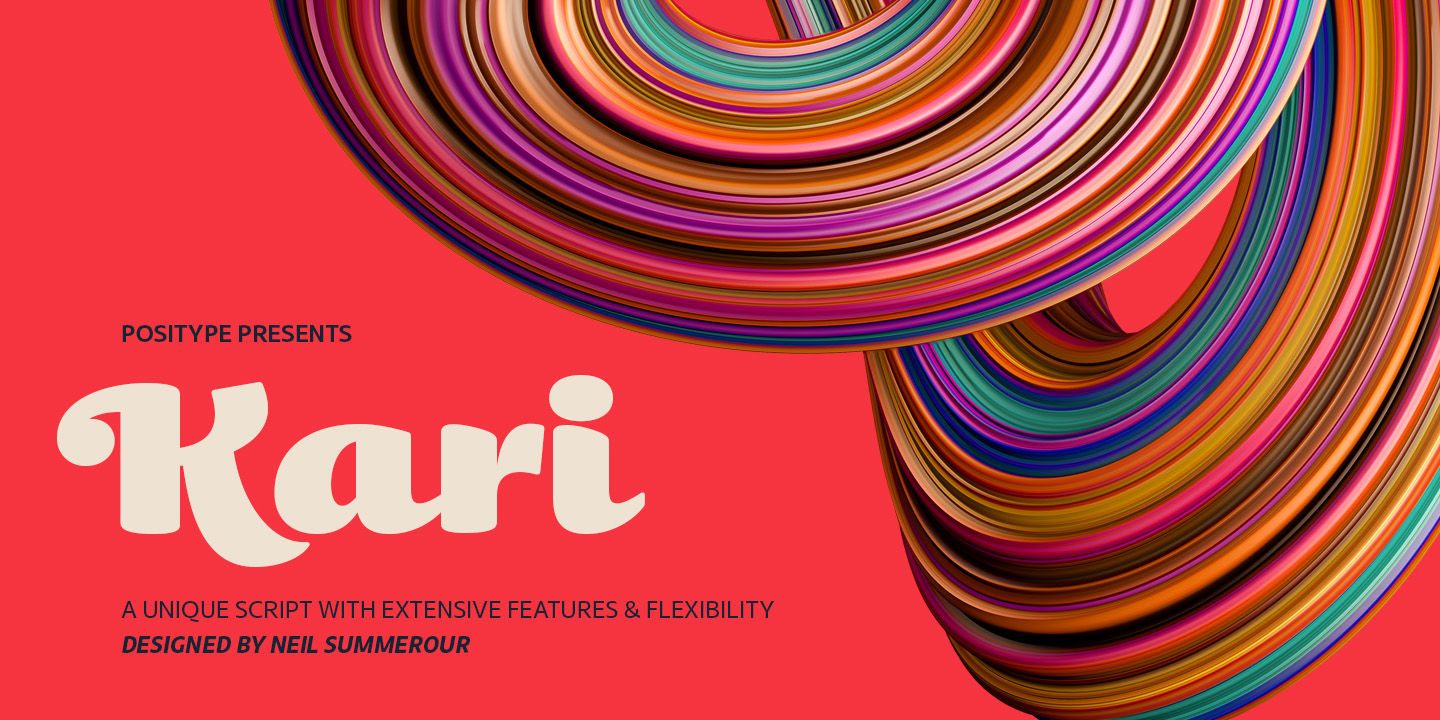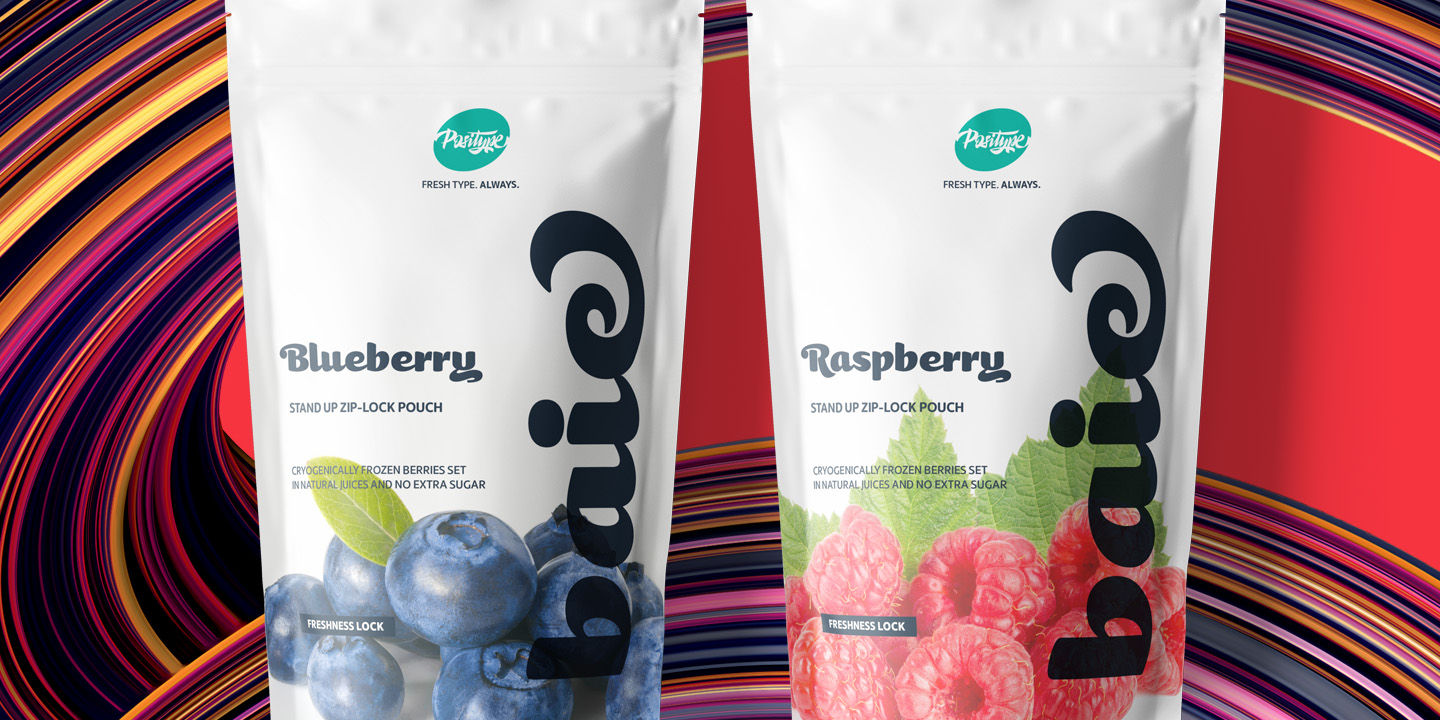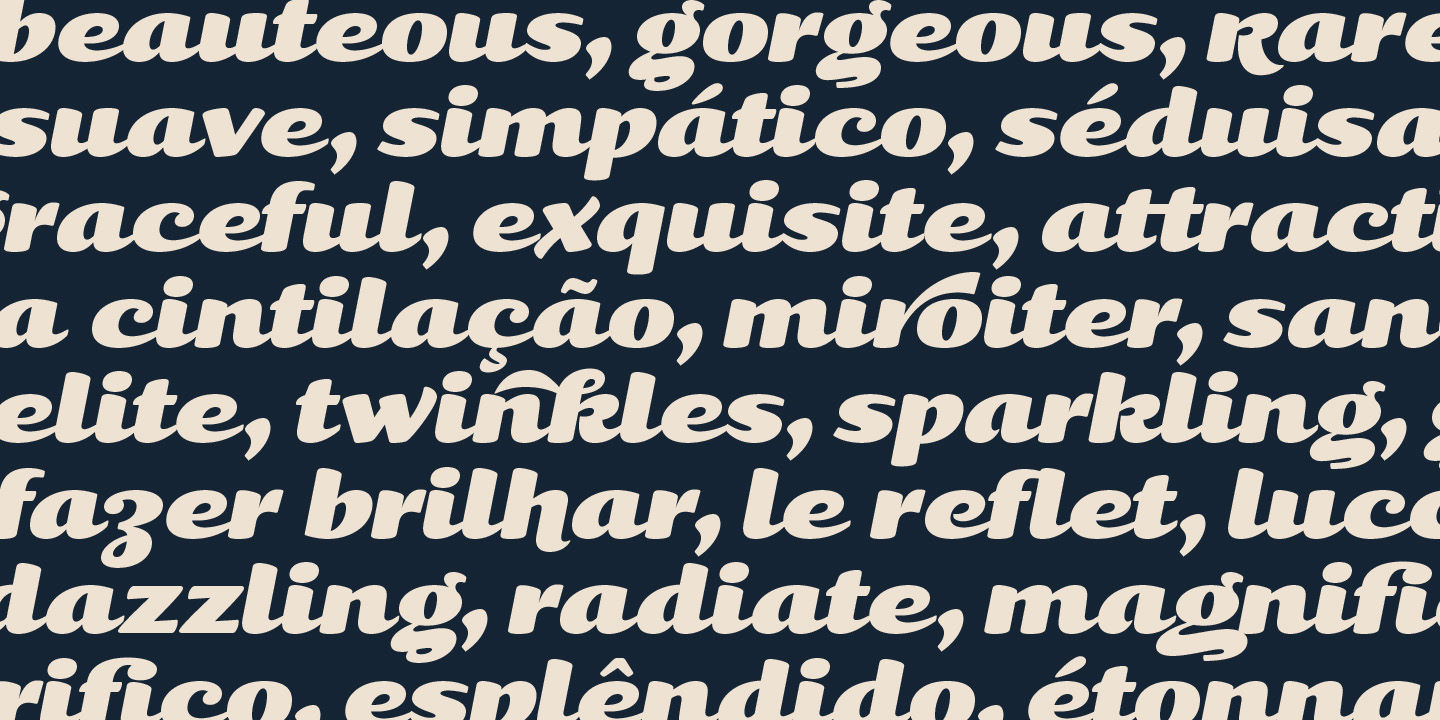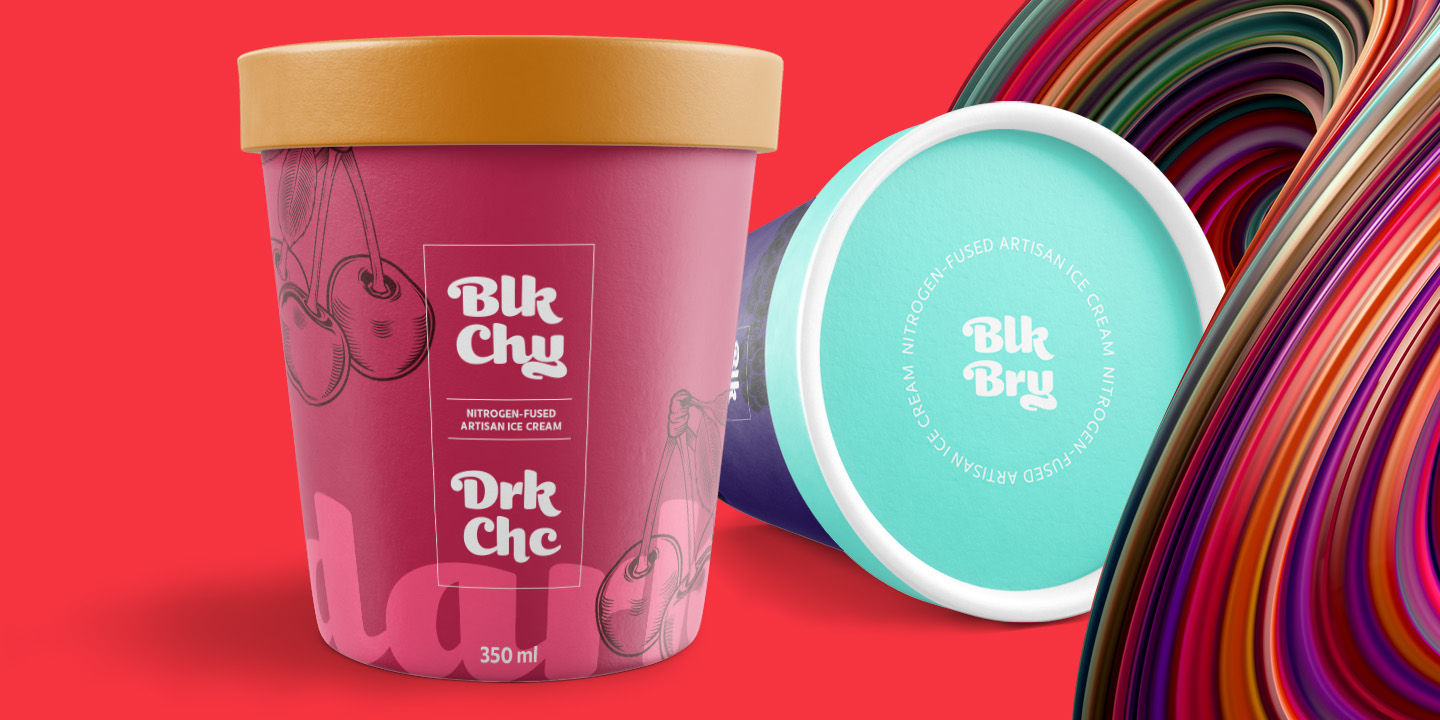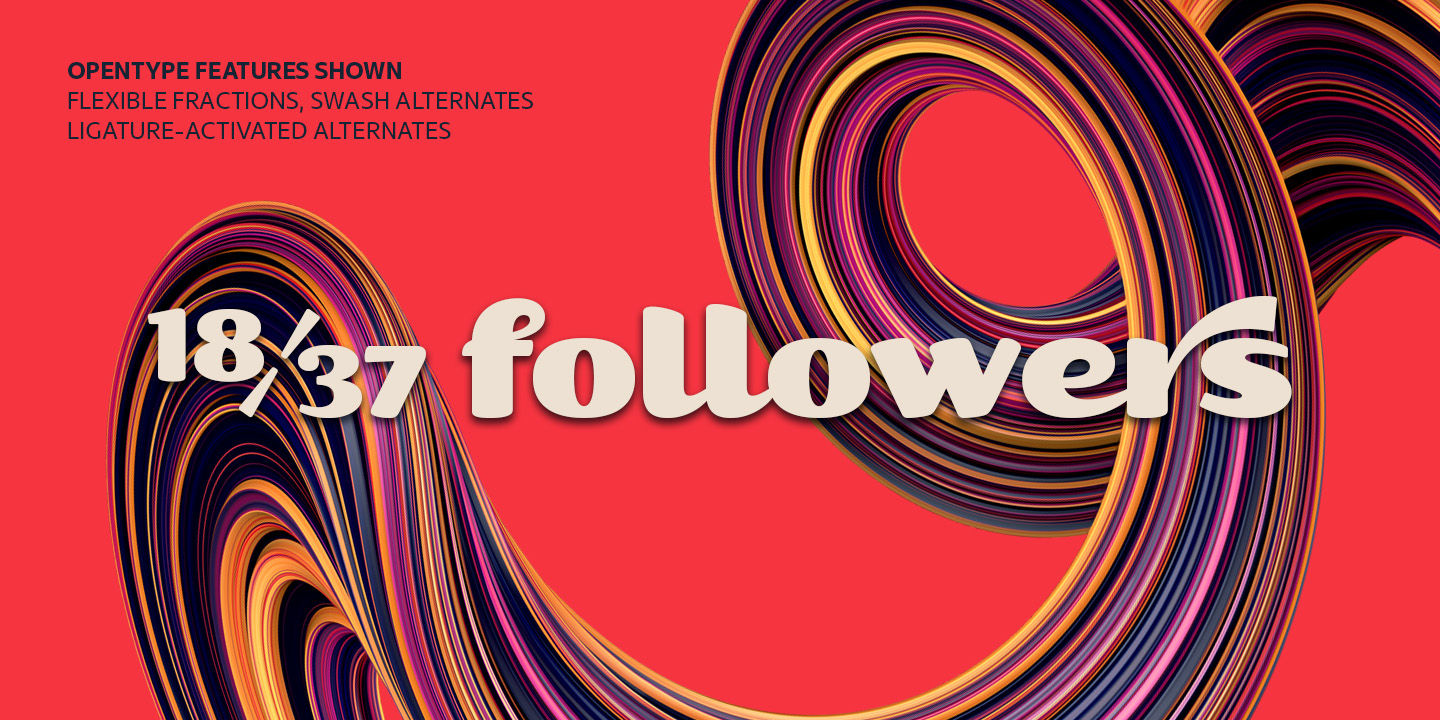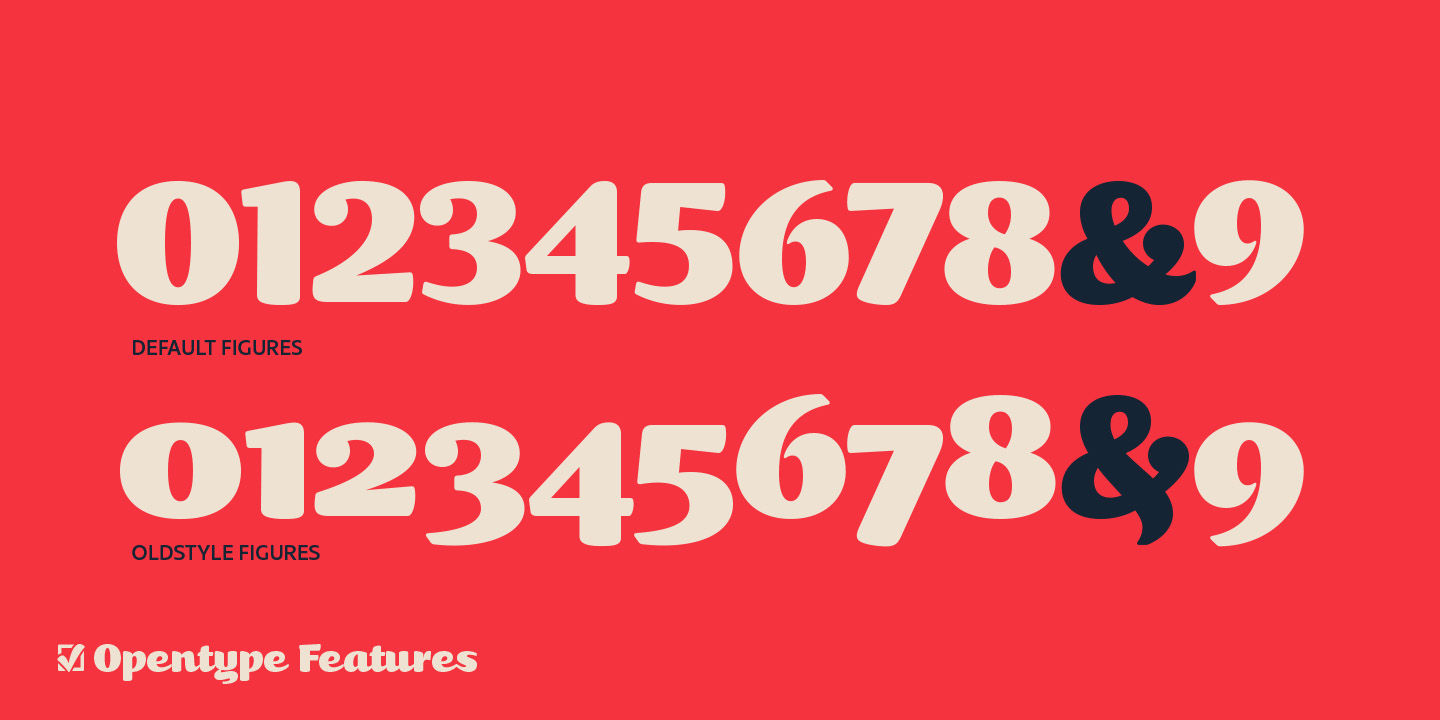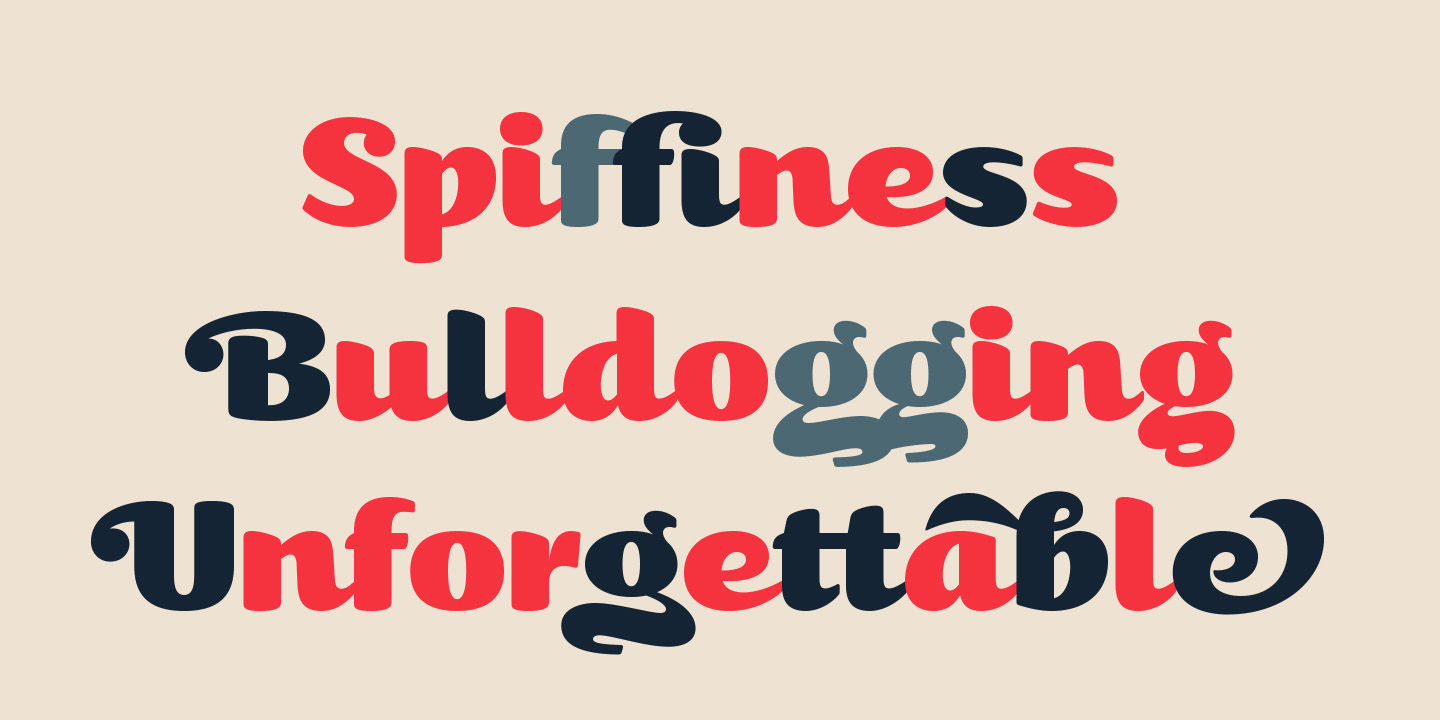
Kari
Initial Release:2009
Styles:6
RegularItalicMediumMedium ItalicBoldBold Italic
fi tf tt
Standard Ligaturesliga
gg
Discretionary Ligaturesdlig
A K R g k e y
Swashswsh
A D H R Y
Titling Alternatestitl
12/34 56/79
Fractionsfrac
1st 2nd 3rd
Ordinalsordn
0123456789
Oldstyle Numeralsonum
K a g n y
Stylistic Set 1ss01
K R l s
Stylistic Set 2ss02
Kari is a complete redraw and expansion of the award-winning typeface originally released in 2005. Featuring both upright and ‘italic’ styles, this soft and curvy script is perfect for packaging, expressive headlines, and fun settings. Feature-rich and flexible, Kari is stocked full of alternate characters, swashes, titling options, expanded numeral sets, new dingbats, and a lot more… and for the first time, the much-requested ‘Medium’ weight is now available.